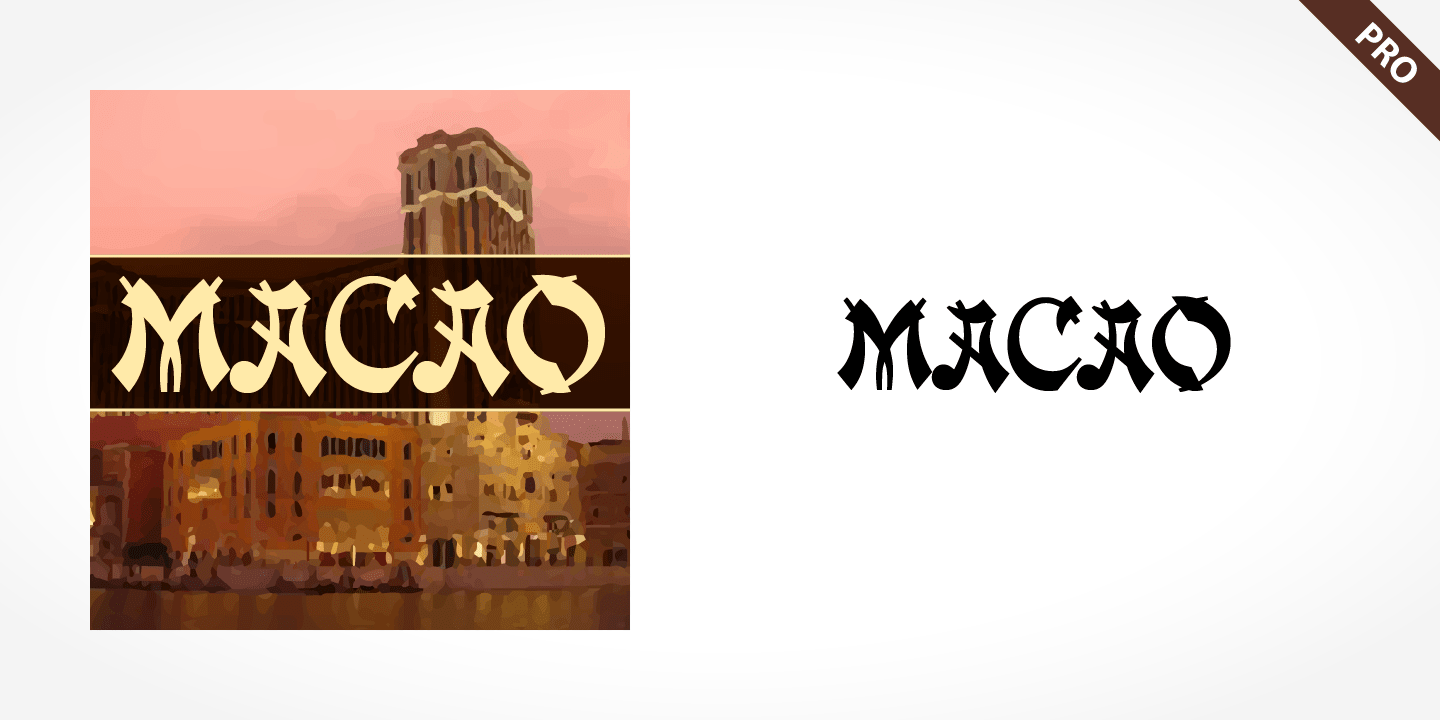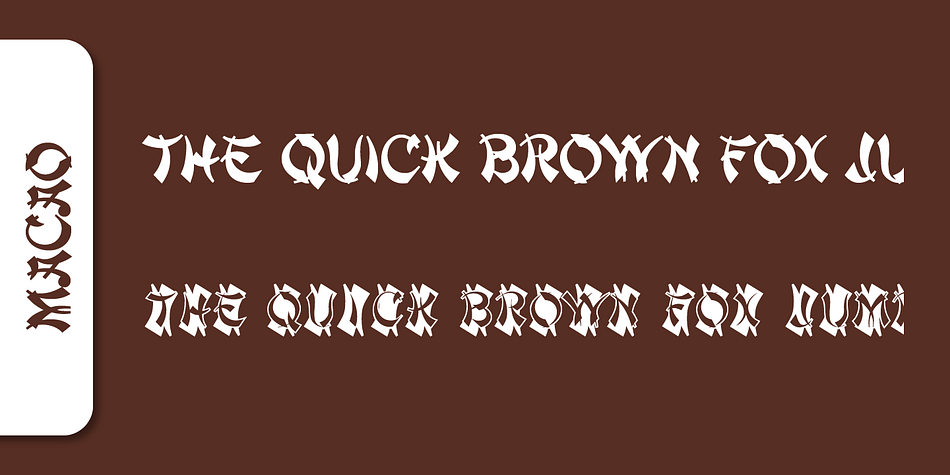
MACAO PRO
Macao Pro is an exotic and hand display font family. This typeface has two styles and was published by SoftMaker.
Macao Pro is an interpretation of artistically drawn Asian brush calligraphy.
Alphabets like Macao font are often used for the menus, signs and advertisements of Asian restaurants as well as for businesses with Asian products.